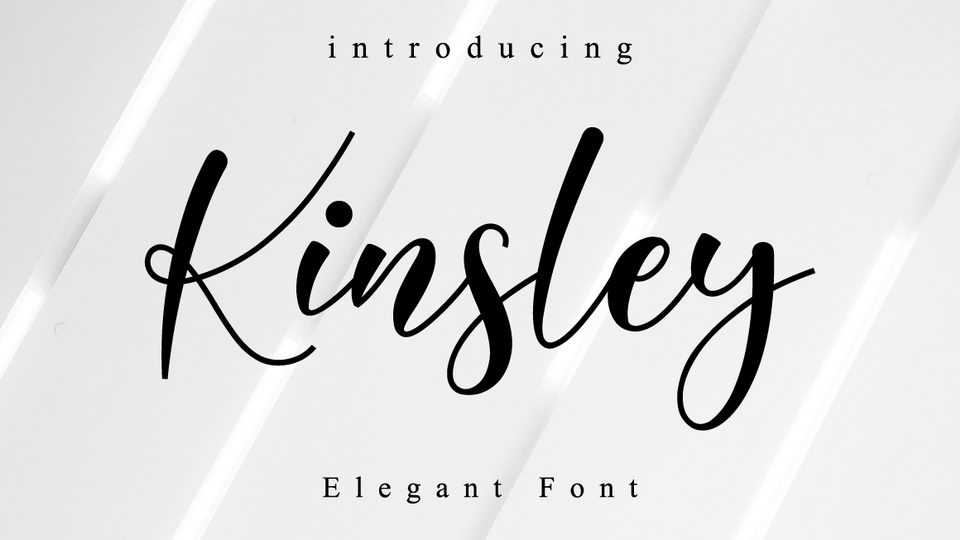
Download Kinsley font, a beautiful modern calligraphy script with an amazing feel. Kinsley will turn any design project into a stand out!
Designer: Nissa Studio